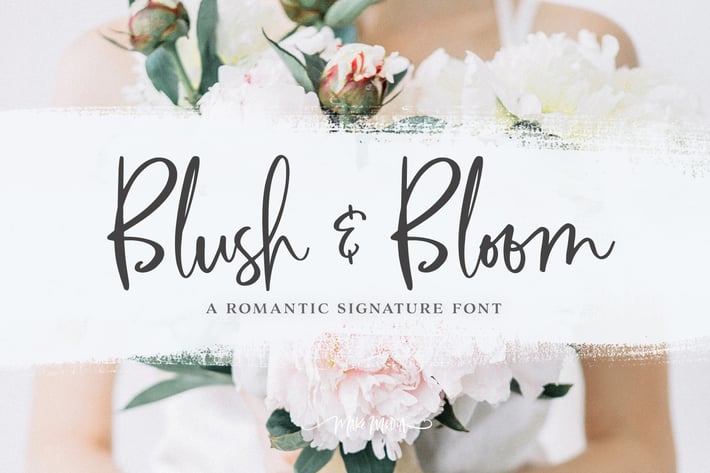
Blush & Bloom Script Font
Introducing Blush & Bloom, a smooth, elegant typeface with 80 ligatures and alternates for an authentic hand-written feel. Blush & Bloom comes in both, Regular and Slanted, and looks gorgeous on business cards, envelopes, logos, signage, greeting cards, wedding materials, packaging and more! Pair it with a simple Sans Serif for a polished, contemporary style.
Blush & Bloom Regular (OTF & TTF) - A smooth, elegant handwriting script with 80 unique alternates and ligatures.